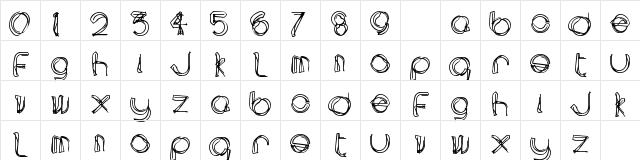
area LINEe Regular
Design Context for area LINEe
area LINEe is a composed and adaptable typeface that performs quietly and consistently across a wide range of design contexts.